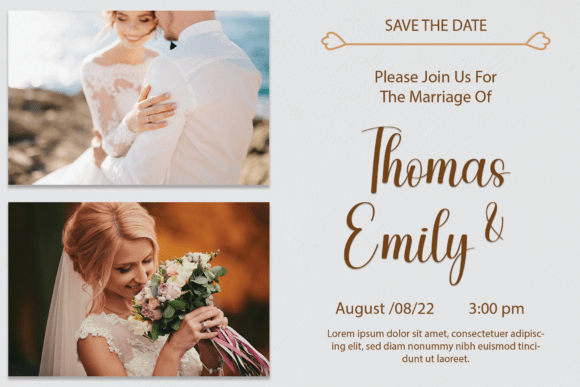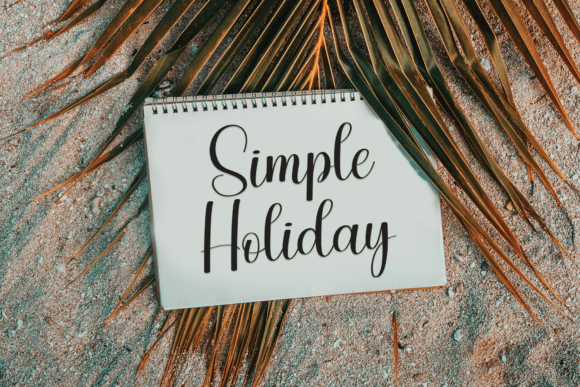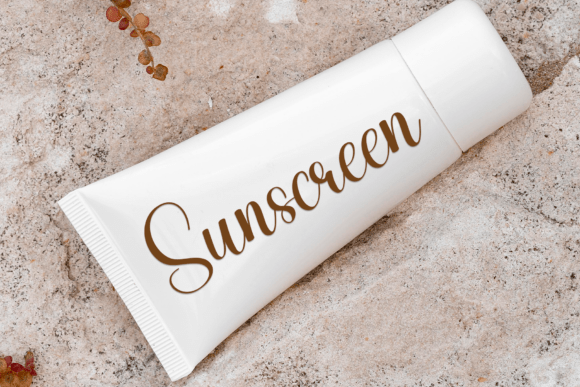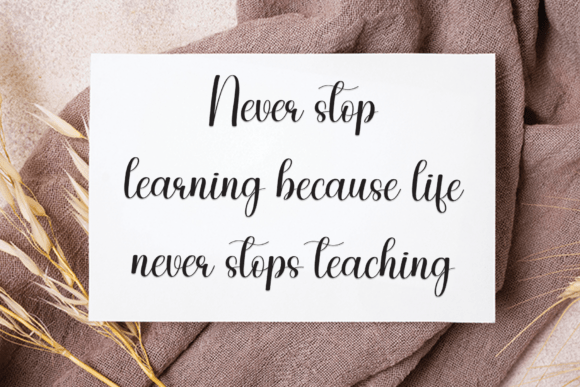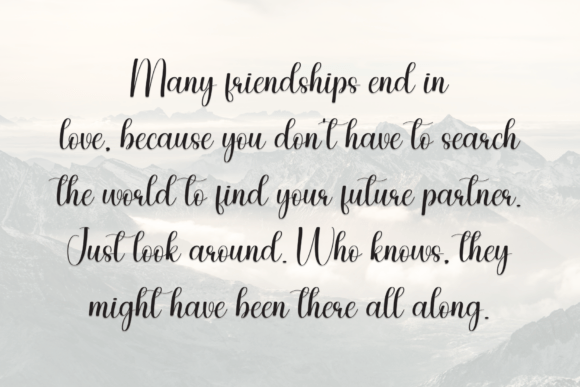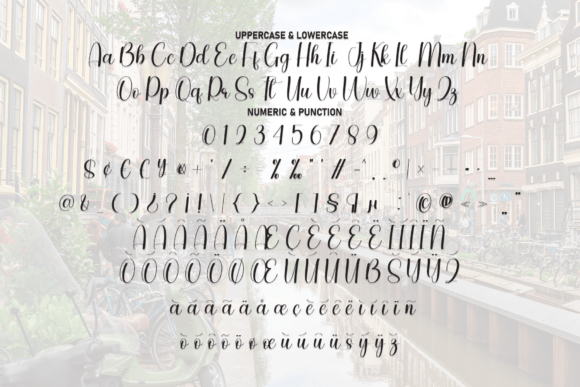
Discovering the Perfect Script: The Allure of the Amsterdam Font
As designers, we’ve all experienced that moment of creative bliss when the perfect font comes along and elevates our project to the next level. It’s the moment when the words on the page start to feel like a work of art, and the typography becomes the focal point. For me, that moment often begins with a font like the Amsterdam Font – a sophisticated and fluid script that exudes a sense of high-end professionalism.
The Amsterdam Font is a masterclass in creative typography, boasting a dramatic visual rhythm that pairs thick, grounded downstrokes with delicate, sweeping hairline connectors. This striking contrast is the key to its success, imbuing each line with a sense of customized artistry that’s perfect for luxury brand identities and high-end editorial content.
Amsterdam Font Key Features
- Unique Characteristics: Amsterdam Font features a unique, elegant design with subtle flair and rounded edges, making it ideal for use in titles, headings, and body text.
- Language Support: Amsterdam Font supports a wide range of languages, including Latin, Cyrillic, and Greek alphabets, making it suitable for use in multilingual documents and websites.
- Font Weight: Amsterdam Font comes in two weights: Regular and Bold, allowing users to choose the perfect font weight to suit their design needs.
Amsterdam Font Review
Overall, the Amsterdam Font is a beautiful, elegant script font that is sure to catch the eye. ✨ I love the intricate details and the way the letters seem to flow together. It’s perfect for any project that needs a touch of sophistication and class.
- Unique and elegant design ✨
- Perfect for formal or business-related projects
- Works well in both print and digital formats
- Available in a range of weights and styles
- May be too ornate for some projects ⚠️
- Not ideal for projects that require a bold, eye-catching font
- Can be difficult to read in small sizes
Overall, I would give the Amsterdam Font 4 out of 5 stars. It’s a beautiful font that is perfect for certain projects, but may not be the best choice for others. With a little careful consideration, it’s sure to add a touch of elegance to any design.
Tips for Getting the Most Out of the Amsterdam Font
The Amsterdam Font is a versatile and elegant font that works well for a variety of applications, including:
- Travel and adventure-themed projects
For the best results, use the Amsterdam Font in conjunction with high-quality images and design elements.
Alternatives to Amsterdam Font
Open Sans is a modern sans-serif font that is highly legible and versatile. It’s ideal for use in digital products, such as apps, websites, and mobile devices. Open Sans is more geometric and clean compared to Amsterdam Font, making it a great choice for modern and minimalist designs.
Lato is a sans-serif font with a strong humanist touch, making it suitable for use in various contexts, including corporate branding, digital products, and publications. Lato is more elegant and refined compared to Amsterdam Font, making it a great choice for high-end and sophisticated designs.
Montserrat is a geometric sans-serif font that is inspired by the urban environment of Buenos Aires. It’s ideal for use in modern and edgy designs, such as fashion, technology, and lifestyle brands. Montserrat is more condensed and bold compared to Amsterdam Font, making it a great choice for headlines and titles.
Merriweather is a classic serif font that is highly legible and elegant. It’s ideal for use in traditional and formal designs, such as books, newspapers, and corporate branding. Merriweather is more traditional and classic compared to Amsterdam Font, making it a great choice for timeless and sophisticated designs.
What is the recommended font size for using Amsterdam Font?
The recommended font size for Amsterdam Font is between 12pt and 24pt. This range provides optimal legibility and readability. However, you can experiment with different font sizes to achieve the desired visual effect.